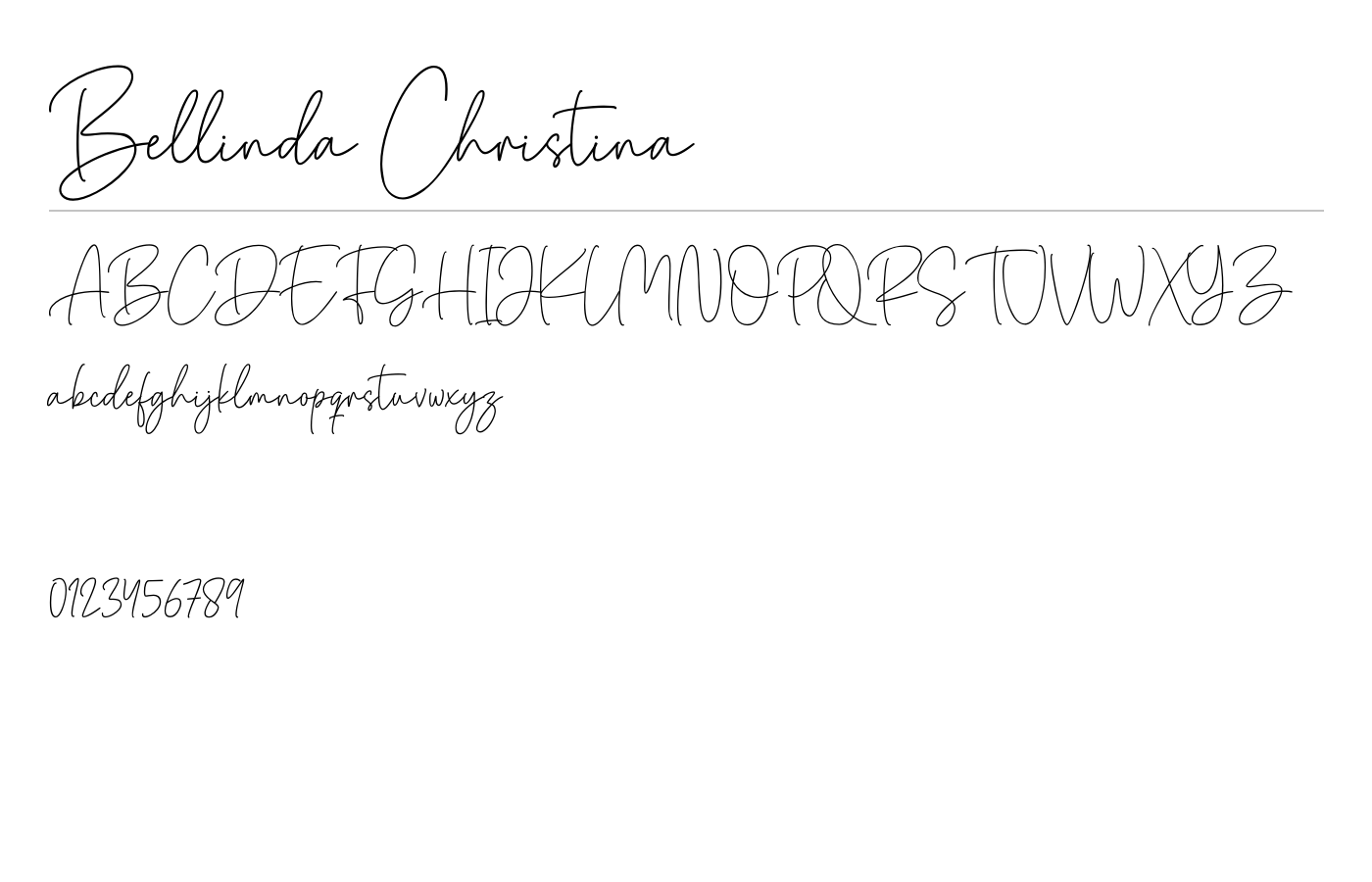
Bellinda Christina is a delicate, handwritten script font characterized by its slender, flowing lines and elegant, airy letterforms. It offers a charming, personal touch with its irregular strokes and casual yet refined style, making it perfect for wedding invitations, branding, and feminine editorial designs that seek a graceful and intimate feel. This font works beautifully in headlines or decorative text where a soft, handwritten elegance is desired.
Bellinda Christina Font
About Bellinda Christina Font
| Font family | Bellinda Christina Font |